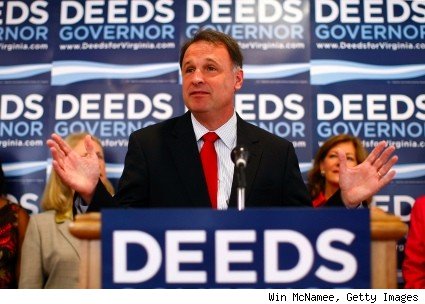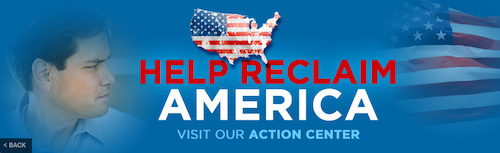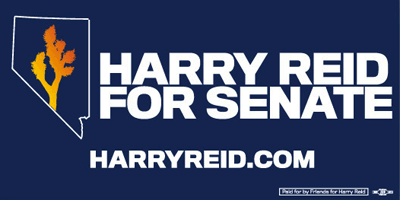
Creigh Deeds uses not only the same type as Obama, but also his color and general design. Of course, it makes sense to see a Democrat piggyback on the most successful campaign identity in history.
Meanwhile, Christine O'Donnell is using Gotham too. A look so sealed to Obama’s legacy seems an odd choice for a Tea Party candidate.
And while Republican Marco Rubio is using a geometric sans for his logo, parts of his website appear as they came from an Obama 2008 design template.
First names are used by candidates with ethnic last names. Like Giuliani in 2008, Fiorina is absent from campaign collateral. Try finding Carly’s last name on her website or on any poster. She is either going for the casual approach, or is selling an easy-to-remember image of a complex person. Hillary used her first name for obvious reasons.
Sharon Angle’s name is-you guessed it-at an angle. Maybe we’re not giving her enough credit and the connotation is more subtle (Nevada has a similar angle along the border with California).
Titling Gothic is strong and clean for Harry Reid. No angles.
Deval Patrick uses the same Interstate-a sans serif with similarities to Gotham-he’s used in all his campaigns.
What is the deal with Baker’s waving ‘B’?
Meg Whitman’s type is a mystery. I’m not sure what it is trying to convey. Not young, fresh, trustworthy, or new-just odd.
Andrew Cuomo’s logo may be the oddest I have ever seen: a ‘C’ reminiscent of Obama’s ‘O’, only with the state of NY inside.
There’s still nothing better than the Nascar, flag waving, red white and blue of Bush-Cheney 2004. Big “BUSH”, little “Cheney”.
I wonder what would have happened if “GORE” was set bigger than “Lieberman”? And 2004-to this day I think some people thought the candidate was named Kerry Edwards.
What the typographic choices say about our candidates, may or may not be important, but clearly designers are choosing type based on readability-Futura, Gotham, Interstate are all very easy to read when driving at night. I predict Sarah Palin and Scott Brown go with Futura in 2012.